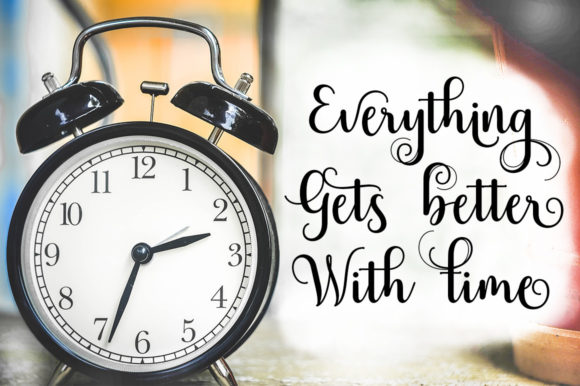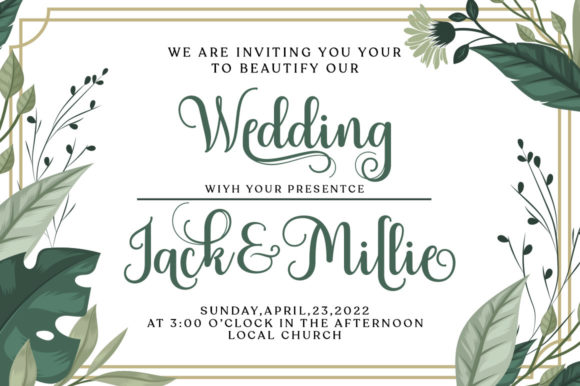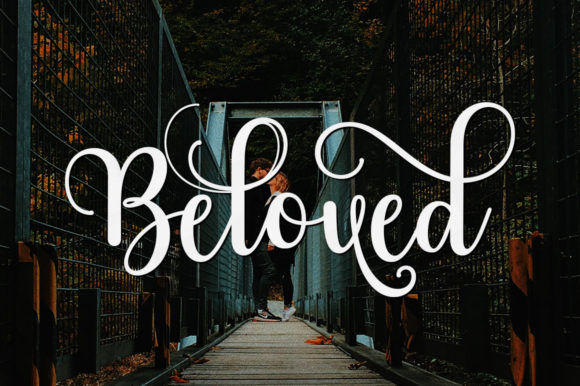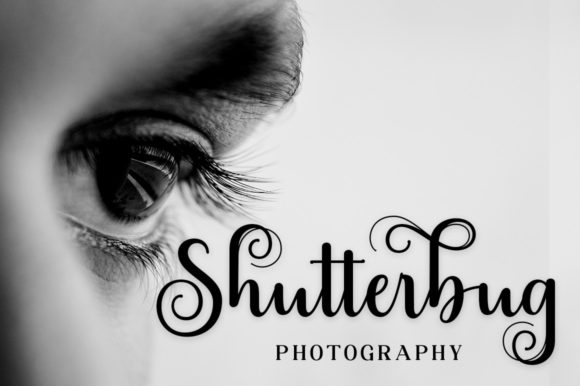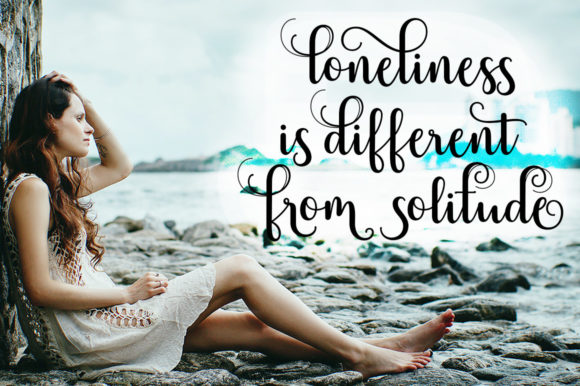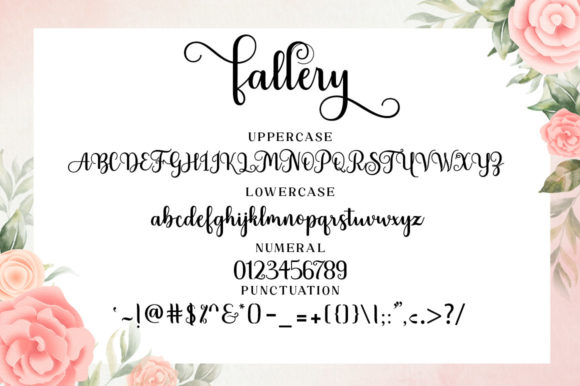
The Designer’s Delight: Fallery Script Font
I’ll never forget the time I was working on a project for a client who wanted a elegant, yet modern logo design. I had spent hours browsing through font libraries, but nothing seemed quite right. That was until I stumbled upon Fallery Script Font. It was love at first sight! 💕 The exquisite handwritten script instantly captured the essence of what my client was looking for. In this article, I’ll share my experience with Fallery Script Font, its features, and how to make the most of it in your designs.
A Personal Review: What I Love and What I Think Could Be Improved
- ✅ Exquisite handwritten script with classy calligraphic influences
- ✅ Contemporary and fresh feel that’s perfect for modern designs
- ✅ Highly versatile and can be used for various design projects, from logos to invitations
- ⚠️ Some users may find the font a bit too ornate for certain projects
- ⚠️ May require some experimentation to get the perfect combination of glyphs and swashes
The Story Behind Fallery Script Font
Fallery Script Font was designed by a talented typographer who wanted to create a font that would capture the essence of elegant, handwritten script. The designer drew inspiration from classic calligraphy and modern script fonts to create a unique and versatile font. The result is a font that’s both elegant and contemporary, perfect for designers who want to add a touch of sophistication to their designs.
| Font Name | Fallery Script Font |
| Author | Zane Studio |
Q: Is Fallery Script Font suitable for body text?
A: While Fallery Script Font is a beautiful font, it’s not suitable for body text. It’s best used for headings, titles, and other design elements where you want to add a touch of elegance.